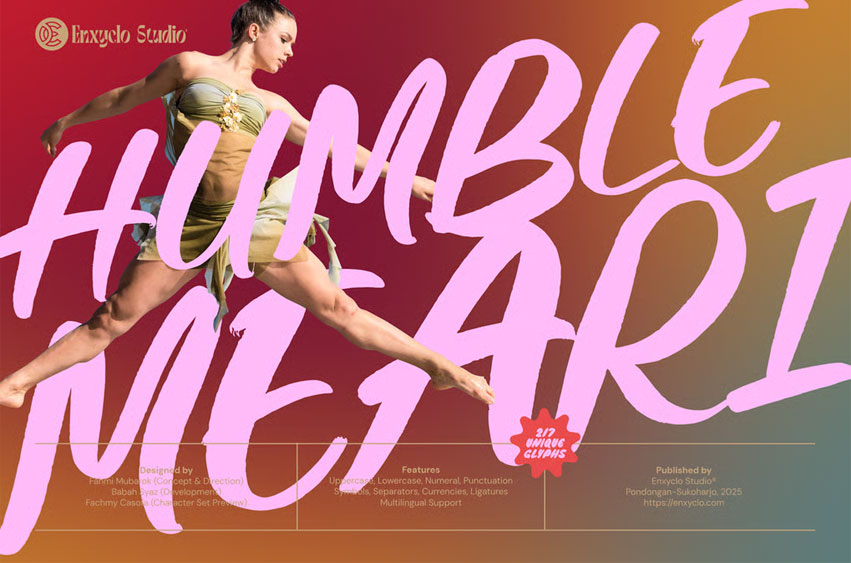
Humble Meari Font
Humble Meari Font is an elegant and expressive script font that beautifully blends fluid cursive strokes with a natural, handwritten charm. Perfectly balancing sophistication and warmth, this font offers a versatile character set featuring uppercase and lowercase letters that flow seamlessly, making it ideal for projects that require a personal yet refined touch. With its graceful curves and legible style, Humble Meari enhances branding, wedding invitations, editorial design, and packaging, bringing an authentic, artistic flair that captures attention and evokes emotion.
• 217 Unique Glyphs
• Uppercase and Lowercase Letters
• Numerals and Punctuation
• Symbols, Separators, and Currencies
• Ligatures for Smooth and Natural Typography
• Elegant Script and Handwritten Style
• Wedding Invitations and Greeting Cards
• Branding and Logo Design
• Editorial and Magazine Layouts
• Packaging and Product Design
• Quotes and Social Media Graphics
• Artistic and Creative Projects
• Lifestyle Branding